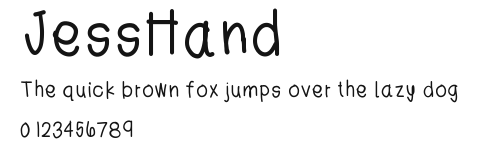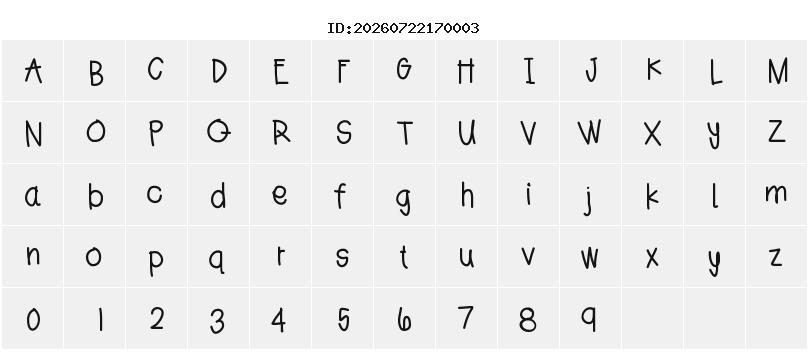
JessHand Preview
• Font Name: JessHand
• Full Font Name: JessHand
• PostScript Name: JessHand
About JessHand.ttf
JessHand.ttf is a modern, elegant sans-serif font designed for ultimate readability and visual harmony. Perfect for branding, headlines, web design, and print materials.